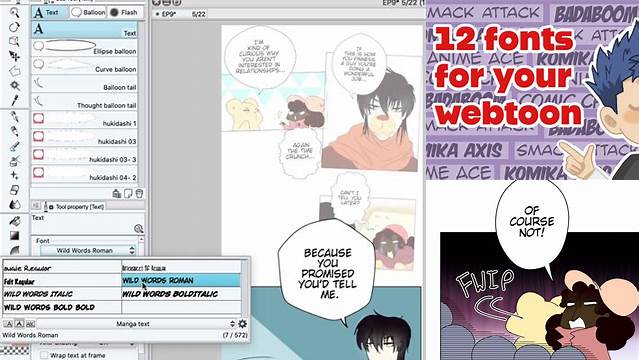
Best Webtoon Fonts: Guide To Choosing The Perfect Font
Webtoons are a fantastic way to read comics online, and a crucial aspect of their appeal is the visual presentation. One of the most important elements contributing to this is the font choice. The right font can significantly enhance readability, convey the tone of the story, and even become a signature element of a webtoon's style. This article will delve into the world of common webtoon fonts, exploring their characteristics, best uses, and why they're so popular among creators. We'll explore fonts that are both visually appealing and legible, ensuring that the story is easy to follow. Choosing the right font can elevate a webtoon from good to great, drawing readers deeper into the narrative and creating a memorable experience. So, whether you're a budding webtoon artist or simply a passionate reader, understanding the nuances of these fonts will enhance your appreciation of the art form. Let's dive in and discover the typographic secrets behind some of the most successful webtoons out there. Get ready to unlock the secrets of typography and discover the best fonts for your webtoon! We will show you the must-know webtoon fonts. Buckle up, guys, because we're about to go through the fonts that are used often!
Understanding the Importance of Font Choice in Webtoons
Selecting the perfect font is like choosing the right voice for your characters. It's not just about the letters; it's about how those letters communicate personality, mood, and the overall atmosphere of your webtoon. A well-chosen font can seamlessly integrate into the artwork, becoming an extension of the story itself. Conversely, a poorly selected font can disrupt the reading experience, making it difficult for readers to focus on the narrative. Think of it this way: the font is the silent narrator, guiding the reader through the story. The font can emphasize the intensity of the story, the joy, or the sadness. It can even make the readers have a different point of view about the character. The font conveys the artist's intention without distracting the readers. That's how important the font is.
Readability is paramount in webtoons, where readers scroll vertically through long panels. Fonts must be clear and easy to read at various sizes, ensuring that dialogue and narration are accessible to everyone. Fonts that are too ornate or complex can be difficult to read, particularly on smaller screens or for those with visual impairments. Clarity should always be a top priority, and designers have to choose a font to consider the readers. The ultimate goal is to make the story understandable, and the font can greatly contribute to that.
Style and Tone should also be considered when choosing a font. A playful, rounded font might suit a comedic webtoon, while a more serious, angular font could be better for a dramatic or action-packed story. Fonts help to set the tone and mood of a webtoon, and the fonts should create a perfect environment for the story. Think about the kind of atmosphere that you are trying to set when choosing your font. A font can tell a lot of things to the readers, and that is why it is very important. The fonts help the readers immerse themselves in the story even more. It can greatly help the story and make the readers feel the story even more.
Consistency is another key factor. Once a font is chosen, it should be used consistently throughout the webtoon to maintain a cohesive visual identity. This consistency helps to build a recognizable style and makes the webtoon more professional and polished. Do not switch the font in the middle of the story. It can make the readers lose their immersion in the story. Consistency helps to establish a brand identity for the webtoon, making it more memorable and recognizable to readers. Creating a consistent experience from start to finish is essential for keeping your audience engaged and coming back for more.
Popular Font Choices for Webtoons
Now, let's explore some of the most popular font choices used in webtoons, understanding their characteristics and when they are most effective. This is the important part, where we talk about the fonts that are usually used in the webtoon. The font greatly contributes to how the readers perceive the webtoon, and you can choose the fonts that suit your story.
1. Comic Sans: Ah, the infamous Comic Sans! Despite its mixed reputation in other contexts, Comic Sans often finds a place in webtoons, especially those aimed at a younger audience or those with a lighthearted tone. Its casual, handwritten appearance can be very effective in conveying a sense of fun and approachability. Comic Sans is particularly suitable for speech bubbles and sound effects, where a more informal style is desired. However, it's essential to use it sparingly and in the right context, as overuse can be distracting. When used well, Comic Sans can add a layer of charm and personality to a webtoon. If you're looking for a fun, friendly, and casual tone for your webtoon, using Comic Sans would be a great choice.
2. OpenDyslexic: This font is specifically designed to improve readability for individuals with dyslexia. OpenDyslexic's unique characteristics, such as weighted bottoms and distinct letter shapes, help to minimize common reading errors and make it easier for people with dyslexia to follow the text. This font is great for making your webtoon more accessible, ensuring that a wider audience can enjoy your work. By using OpenDyslexic, creators demonstrate a commitment to inclusivity and make their webtoons welcoming to all readers. The font is readable and helps people with dyslexia understand the story without issues. OpenDyslexic is a testament to the power of thoughtful design in making content accessible to everyone.
3. Roboto: Roboto is a versatile and widely used font known for its clean lines and excellent readability. It’s a sans-serif font that works well in a variety of settings, making it a great choice for both dialogue and narration in webtoons. Its neutral and modern aesthetic ensures that the text is easy to read and doesn’t distract from the artwork. The font is often used to create a clean and contemporary look. Its versatility makes it a safe choice for most webtoons, ensuring that the focus remains on the story. Roboto is a perfect choice for those who want their webtoon to look professional and easy to read.
4. Arial: Arial is another popular sans-serif font that is a staple in the world of typography. It’s known for its simplicity and clarity, making it a reliable choice for any webtoon. Arial's straightforward design ensures that text is legible at various sizes and on different devices. This font is used in different circumstances and has great compatibility. You can use it without any worries about compatibility. The font is very clear and is easy to read, and it makes a great choice for your webtoon.
5. Bebas Neue: Bebas Neue is a sans-serif font known for its tall, condensed letterforms and modern appearance. It's a great choice for headlines and titles, adding a touch of sophistication and visual interest. Bebas Neue is very easy to read and helps the webtoon stand out from the crowd. Its bold presence draws the reader's eye, making it perfect for creating impactful titles and headings. This is a great font to make your webtoon look more stylish and appealing. It's great for creating a strong visual impact in your webtoon.
Choosing the right font for your webtoon might feel daunting, but here are some tips to help you make the perfect selection. Choosing a font is very important, as it will play a huge role in the reader's experience. By keeping these things in mind, you'll be well on your way to selecting the perfect font for your webtoon.
1. Consider Your Genre: The genre of your webtoon should be the biggest factor in your font choice. A lighthearted comedy might benefit from a playful font like Comic Sans, while a dark and gritty action story may need a more serious font like Arial or Roboto. Consider the emotions and atmosphere you want to convey and choose a font that supports those elements. If you're making a romance webtoon, choose the font that expresses love. If you are making a horror webtoon, choose the font that expresses the horror of the story. The fonts will set the tone and mood of the story.
2. Prioritize Readability: Always prioritize readability. Make sure the font you choose is easy to read at various sizes and on different devices. Test your webtoon on different screens to see how the font appears. Avoid fonts that are too ornate or complex, as they can distract from the story. The readability is the most important thing to consider, because even if the font suits the genre of your webtoon, it is useless if the font is hard to read. So, always keep readability in mind while choosing the font. It should always be a number one priority.
3. Test Different Fonts: Experiment with different fonts before committing to one. Test them with different dialogues, narration, and titles to see how they look. Get feedback from others to see which fonts resonate the best with your target audience. Experimenting with different fonts is a fun part. You can have fun exploring different fonts, and you can try to find the fonts that match the genre of your webtoon. Testing the fonts is a great way to ensure you've made the right choice.
4. Consistency is Key: Once you've chosen a font, stick to it. Consistent font usage throughout your webtoon helps to establish a cohesive visual identity and makes the webtoon more professional. The font should be used consistently so that the readers don't lose their immersion in the story.
5. Consider Font Pairing: Sometimes, using a combination of fonts can enhance your webtoon. For example, you might use one font for dialogue and another for titles or sound effects. Make sure the fonts complement each other and do not clash. It is important to make sure the fonts are not too similar. Otherwise, it will become hard to read, and it will make the readers feel frustrated.
Where to Find Webtoon Fonts
Now that you understand the importance of fonts and know some popular choices, where can you find these fonts? This is important since you will need to download fonts for your webtoon. Luckily, there are many resources where you can find fonts for your webtoon. Here are some great places to find fonts for your webtoon!
1. Google Fonts: Google Fonts offers a vast library of free, open-source fonts that can be used for personal and commercial projects. This is a great place to start, as it provides a wide variety of fonts, including Roboto, OpenDyslexic, and many others. Google Fonts is a user-friendly platform that is easy to navigate. The fonts are also free and easy to download. There is a huge collection of fonts you can use for your webtoon!
2. DaFont: DaFont is another popular website that offers a wide selection of fonts. You can find many styles here, from Comic Sans to Bebas Neue. Be sure to check the license of each font to ensure it's suitable for your intended use. However, be aware that some fonts may require attribution or have restrictions on commercial use. You need to check the license before using any fonts. However, it has a very large collection of fonts you can choose from.
3. Font Squirrel: Font Squirrel offers a curated collection of free fonts, all of which are licensed for commercial use. The site is known for its high-quality fonts and ease of use. They offer a variety of fonts that can be used for your webtoon. If you need a free commercial license font, you should visit Font Squirrel! This site is a great resource for high-quality, commercially usable fonts.
4. Creative Market: For more premium font options, Creative Market offers a marketplace where you can purchase fonts from independent designers. While these fonts come at a cost, they often offer unique and professional designs that can elevate your webtoon. This is a great place if you are serious about making a webtoon. It is not cheap, but the quality is outstanding.
Conclusion: Choosing the Right Font
Choosing the right font is an important step for creating a successful webtoon. By understanding the importance of font choice, exploring popular options, and following the tips provided, you can select the perfect fonts to enhance your storytelling and captivate your audience. Remember to prioritize readability, consider your genre, and experiment with different fonts to find what works best for your webtoon. Happy creating, guys!